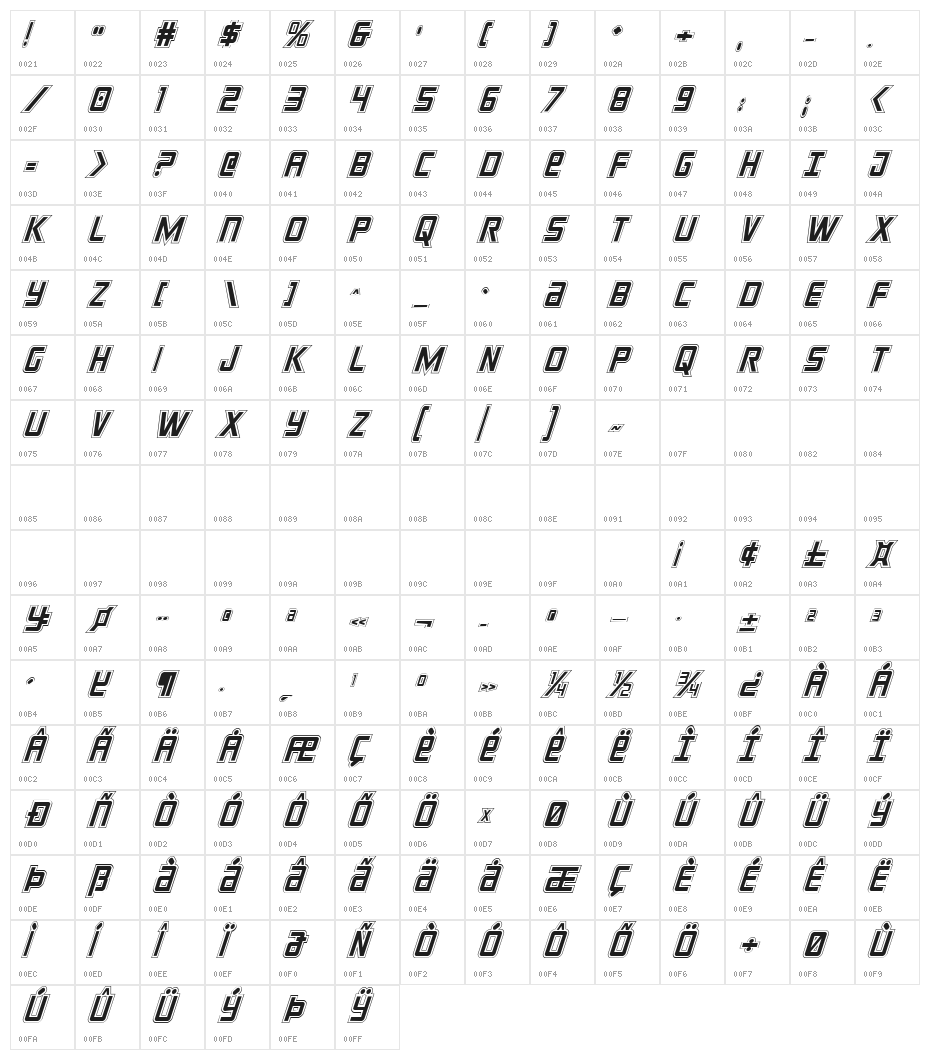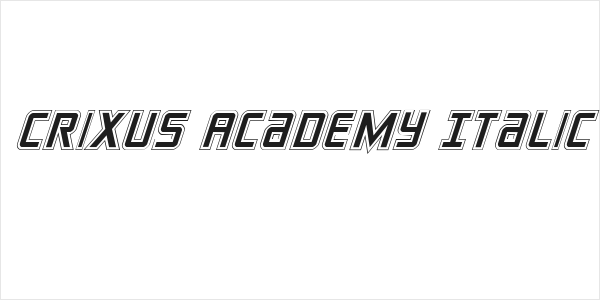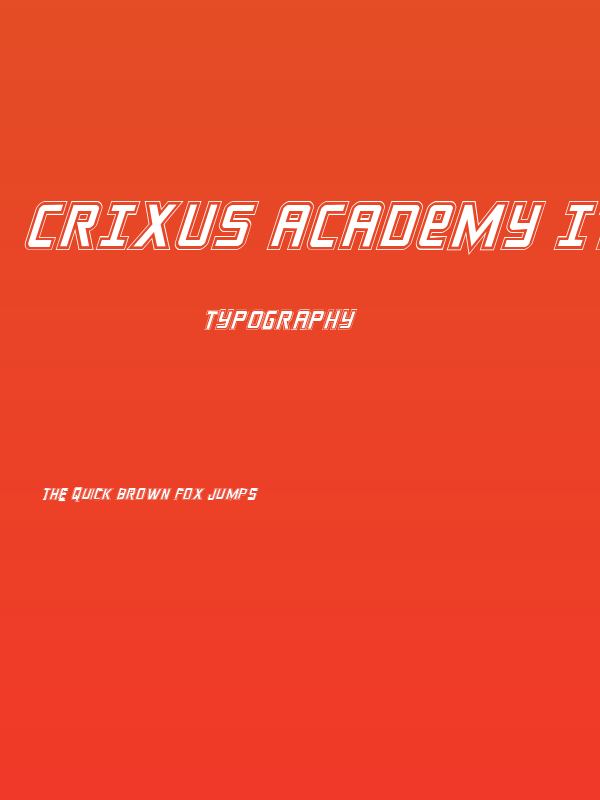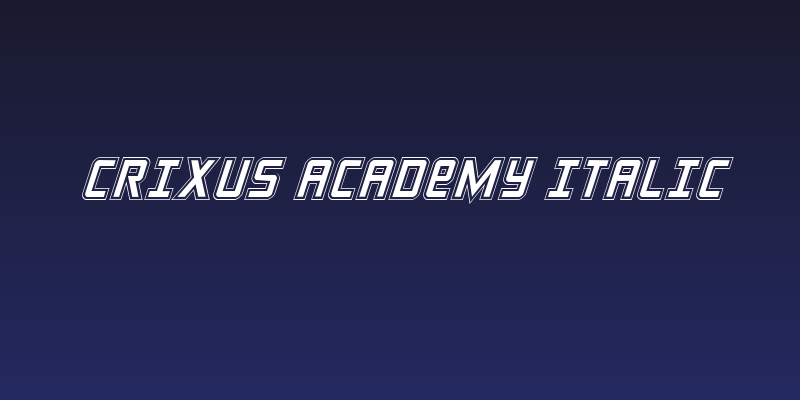
Crixus Academy Italic Font
Crixus Academy Italic Description
This font features a bold, italicized style with a distinct outline that gives it a dynamic and modern appearance. The characters are slightly slanted, adding a sense of motion and energy. The uppercase and lowercase letters maintain a consistent design, with sharp angles and clean lines that enhance readability. The numbers and special characters follow the same aesthetic, ensuring uniformity across all text elements. The outlined nature of the font adds depth, making it suitable for eye-catching designs.
| Proposed Projects | Ideal for sports branding, dynamic posters, video game titles, and modern advertising campaigns. |